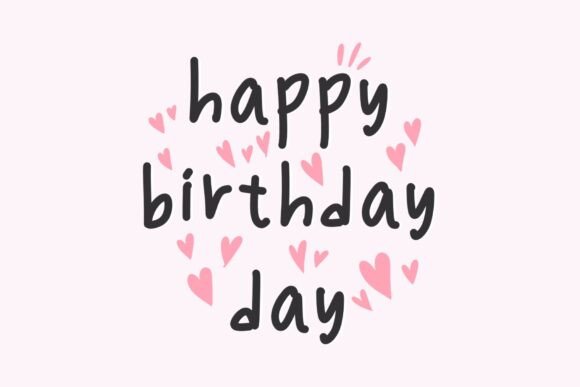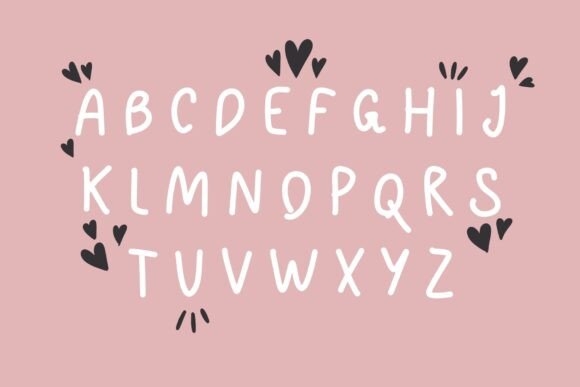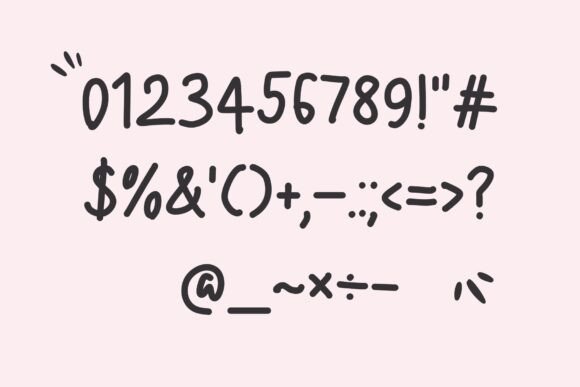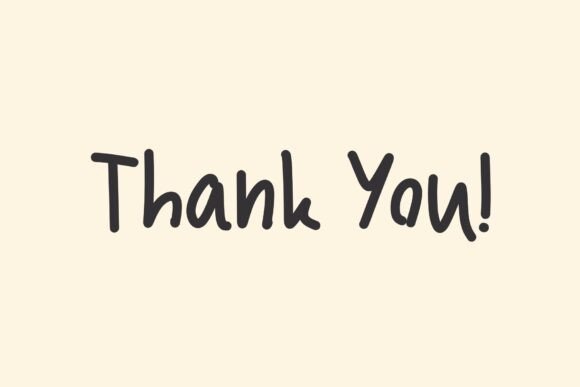
Introduction to Lemonmilk Font
Remember the thrill of doodling in your notebook during class, the joy of scribbling down ideas in the middle of the night, or the excitement of creating a new project from scratch? For many of us, these moments are a testament to the magic of creativity and self-expression. And now, we’re excited to introduce a design resource that can bring a touch of that magic to your digital creations – the Lemonmilk Font.
| 👤 Author | MyFontsShop |
As a designer, you understand the importance of a high-quality font in elevating your work. Whether you’re working on a creative project, designing a logo, or crafting a social media post, the right font can make all the difference. That’s why we’re thrilled to offer the Lemonmilk Font, a charming handwritten font that’s perfect for adding a personal, cozy feel to your notes, projects, and designs. And the best part? It’s available for free download, complete with a transparent background for seamless integration into your designs.
Key Features of Lemonmilk Font
- High-quality font suitable for creative projects, including posters, flyers, and social media graphics.
- Comes in a single font size, making it easy to use in various design contexts.
- Designed with a modern aesthetic, making it perfect for contemporary creative projects.
Honest Review: Lemonmilk Font
As a designer, I’ve had the chance to work with a lot of fonts, but the Lemonmilk Font has caught my attention. I was excited to give it a try and see if it lives up to its promise.
- ✨ The Lemonmilk Font is a high-quality font that is perfect for creative projects. Its modern and sleek design makes it ideal for use in various design applications.
- ⚠️ The font is limited to a few styles, which might not be enough for designers who need a wide range of options.
- ⚠️ The font doesn’t come with a lot of language support, which might be a limitation for designers who work with clients from different regions.
Overall, I’m impressed with the Lemonmilk Font. While it has some limitations, its high quality and modern design make it a great resource for designers. If you’re looking for a free font that’s perfect for creative projects, the Lemonmilk Font is definitely worth checking out.
Tips for Getting the Most Out of Lemonmilk Font
Use the transparent background feature to create visually appealing designs. Experiment with different font sizes and colors to add depth and interest to your project. Consider pairing the Lemonmilk Font with other design resources for a cohesive look.
The Lemonmilk Font is ideal for creative projects, such as blog posts, social media graphics, and marketing materials. It’s also great for designing presentations, reports, and other business documents. With its high-quality design and transparent background, the Lemonmilk Font is a versatile design resource that can be used across various platforms and industries.